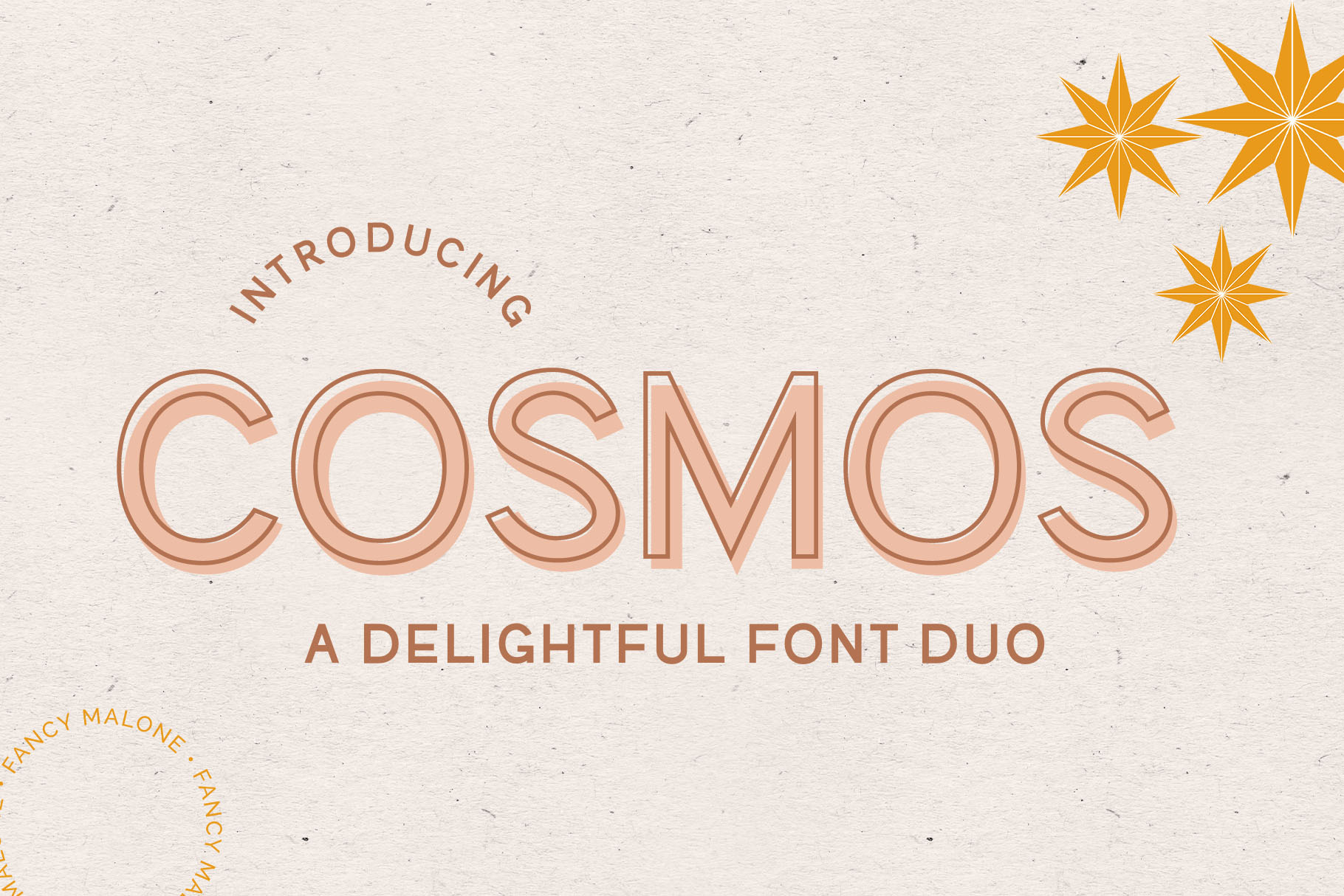
COSMOS Offset Font Duo
Introducing Cosmos, a delightful sans serif font duo featuring 2 weights of Cosmos monoline (regular and bold) as well as Cosmos Outline. Layer bold under outline for a unique, offset effect. The layered combo, or a juxtaposition of outline next to regular or bold work well for headlines. This font is wonderful for branding and logo work. I can't wait to see what you create with them!